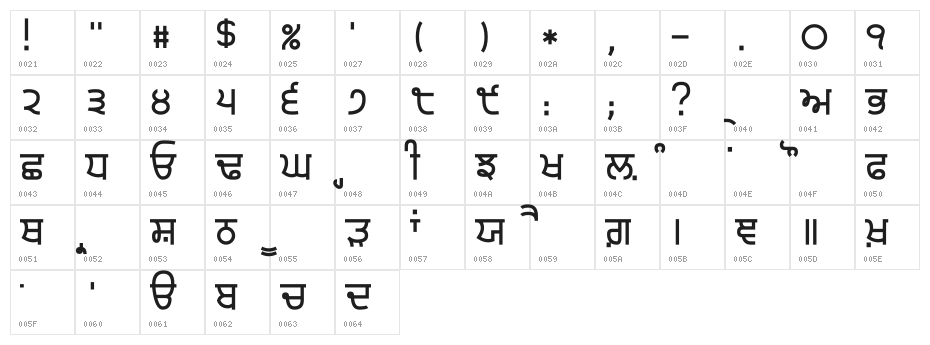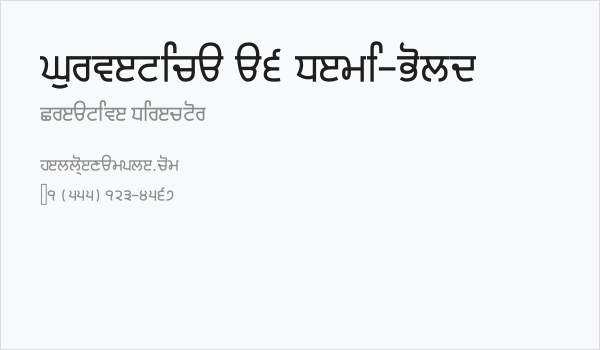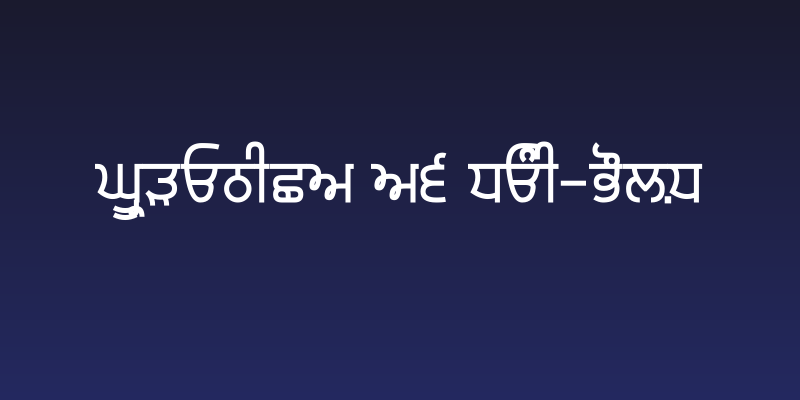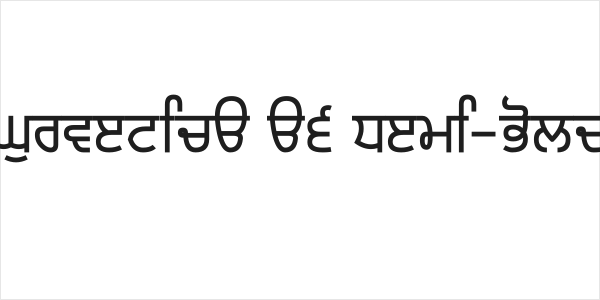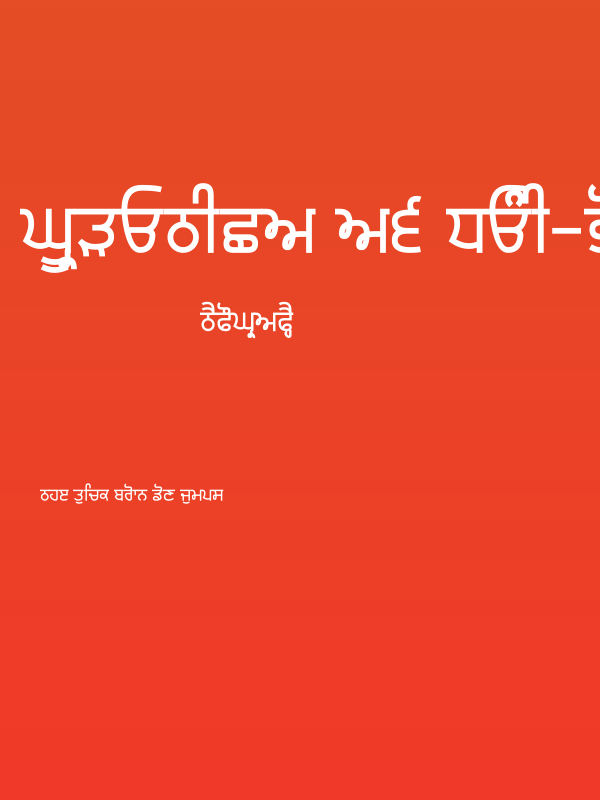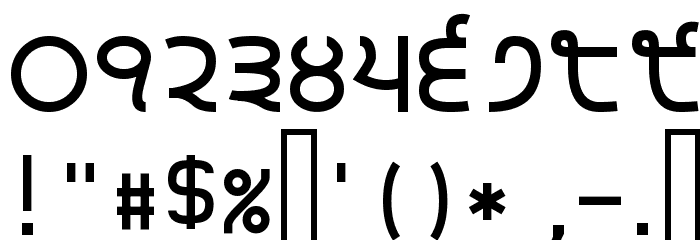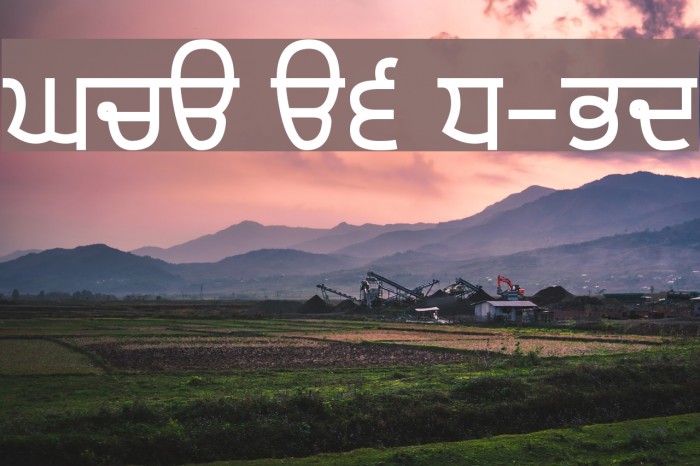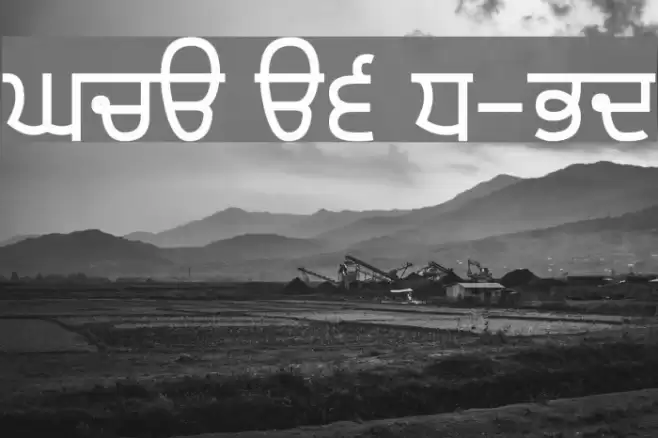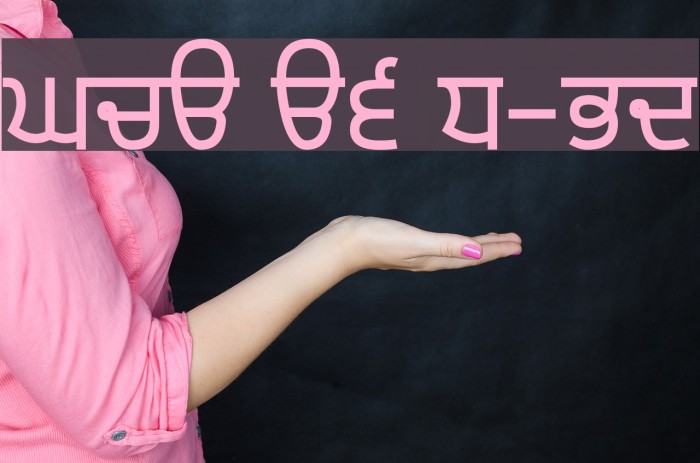
Gurvetica a6 Demi-Bold Font
Gurvetica a6 Demi-Bold Description
A geometric, sans-serif Gurmukhi typeface with uniform stroke thickness, clean lines, and rounded terminals. The characters are bold and highly legible, with consistent proportions and minimal ornamentation.
| Use Case | Headlines, Logos, Signage |
| Proposed Projects | Posters, signage, branding, digital interfaces, educational materials. |